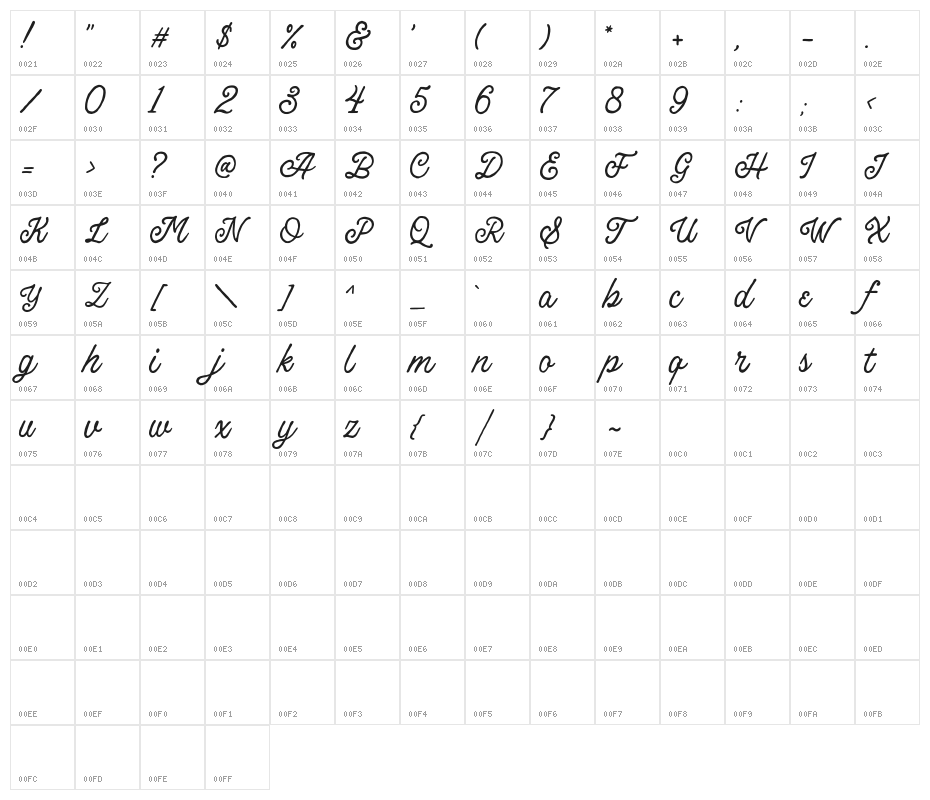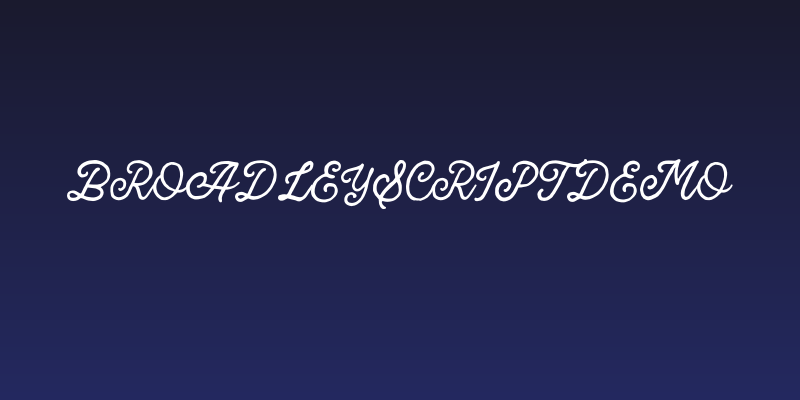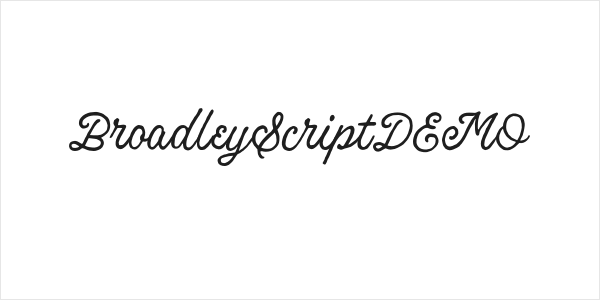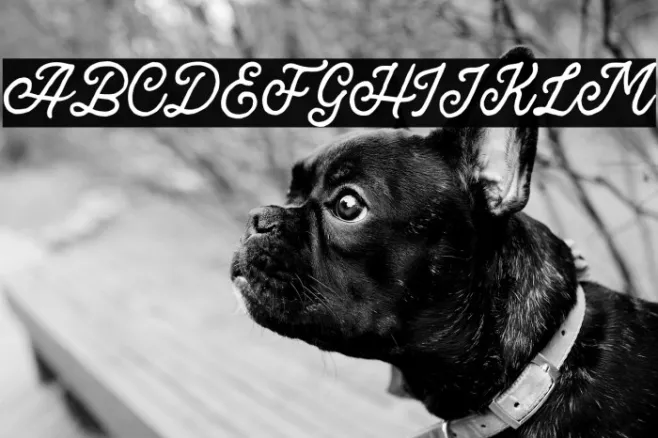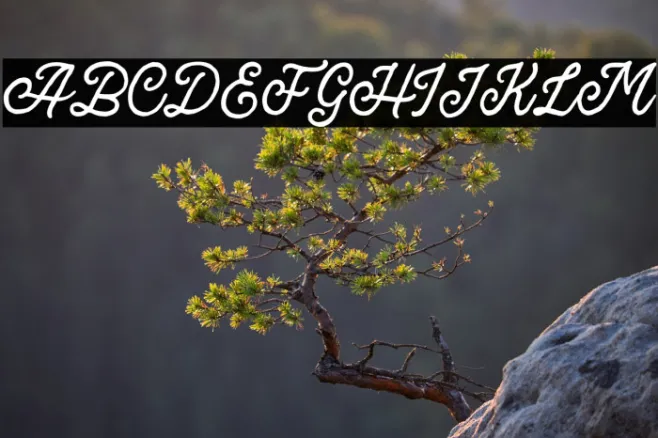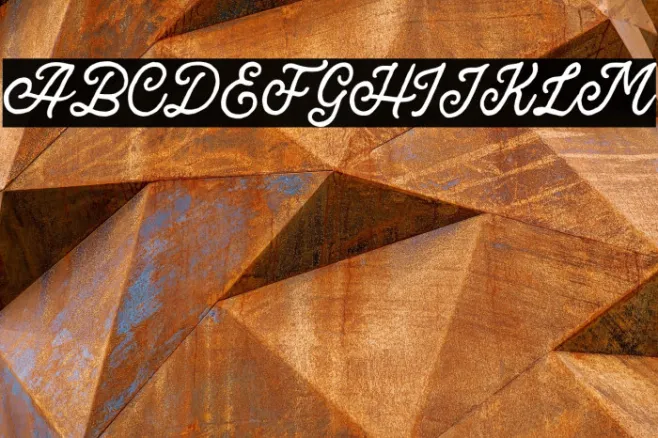
BroadleyScriptDEMO Font
BroadleyScriptDEMO Description
This font features a flowing, cursive style with elegant loops and flourishes. The uppercase letters are bold and prominent, while the lowercase letters maintain a consistent, smooth flow. The numerals are distinct and easy to read, with a slight slant that complements the overall script style. Special characters are designed with the same attention to detail, ensuring a cohesive look across all glyphs. The font's design is reminiscent of traditional calligraphy, yet it maintains a modern appeal, making it versatile for various applications.